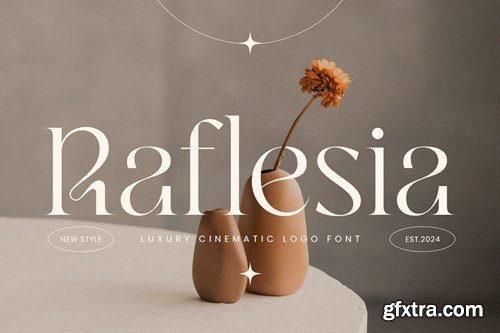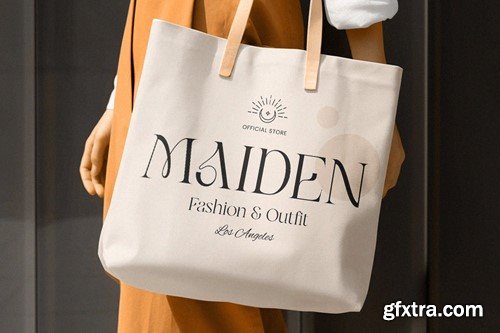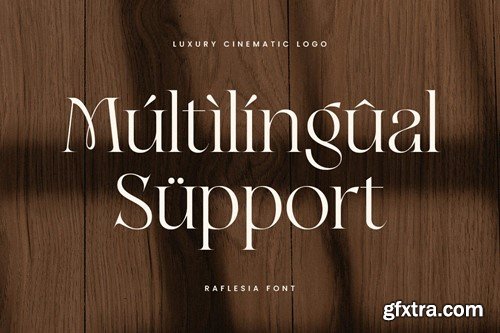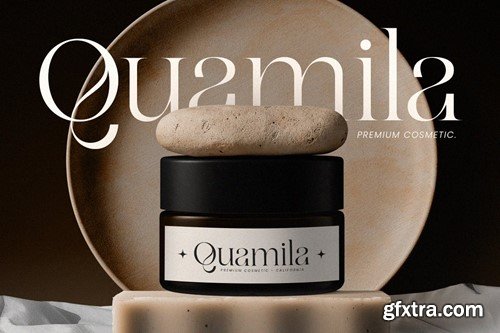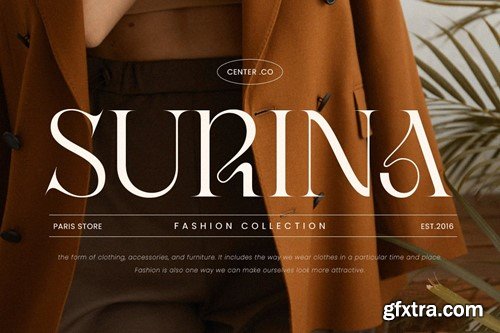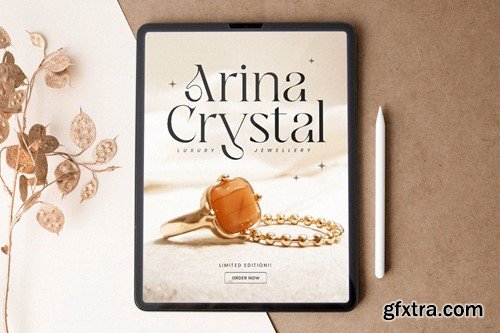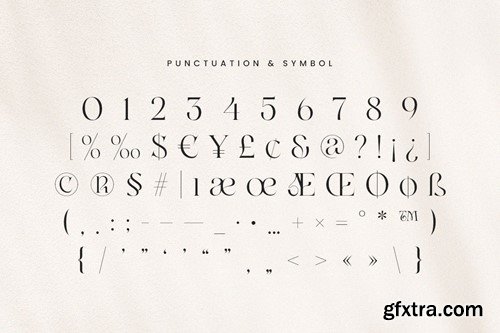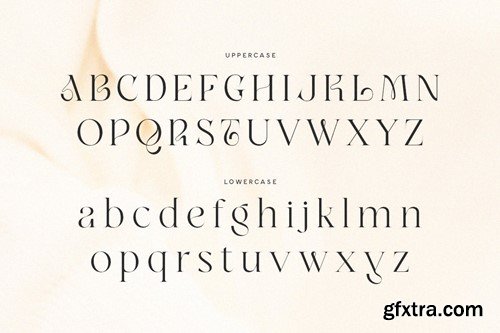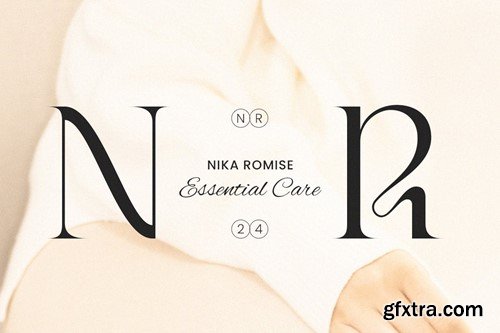
Raflesia is a luxury cinematic font designed to bring elegance and sophistication to your high-end design projects. Inspired by the timeless beauty of classic cinema and the luxurious feel of high-end brands, Raflesia combines modern aesthetics with a touch of vintage glamour. This font is perfect for creating stunning logos, refined branding materials, and stylish designs that demand attention. The Story Behind Raflesia: Raflesia was crafted to embody the essence of luxury and cinematic allure. The font draws inspiration from the elegance of classic films and the sophistication of luxury brands. Whether you're working on a high-end logo, branding for a premium product, or creating cinematic posters, Raflesia provides the perfect blend of style and grace. Raflesia Font Features: Elevate your design projects with Raflesia and bring a touch of cinematic luxury to your work.